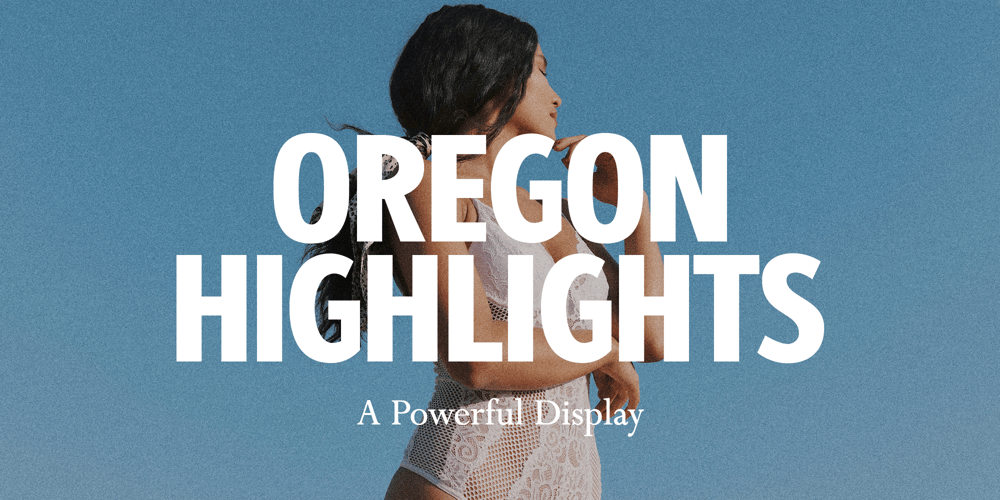
Oregon Highlights Font Family was designed by Dmitrii Chirkov and published by Supfonts. Oregon Highlights contains 1 styles and family package options. Oregon Highlights is a bold and nostalgic display with clear lines, which makes it awesome in the headlinesFont is an open type with clean shapes and precise kerning.It includes ligatures encoded by the PUA.Language support: All European languagesDon’t forget to subscribe so you don’t miss out on the new awesome fontsDima